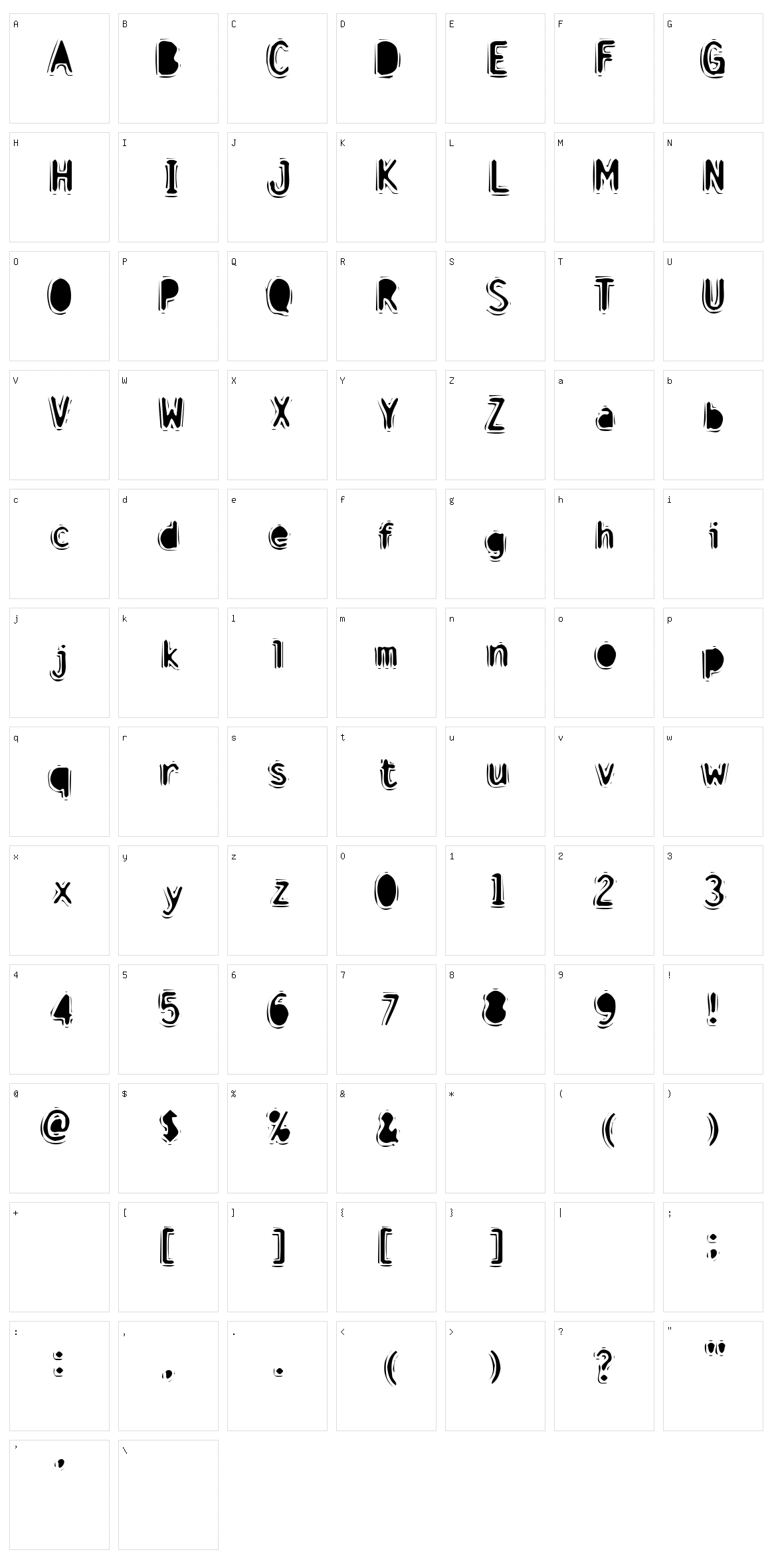
The free font Discount Inferno is carefully designed by Dave Kellam, showcasing a thoughtful balance of creativity and usability and falls under the Eroded font style. When you download the ZIP file, it contains only 45.87 KB of font files, making it lightweight and quick to download. Please review the license details below to understand permitted usage and distribution rights. If license information is not available, we recommend using this font for personal projects only or contacting the author directly for commercial usage permissions.